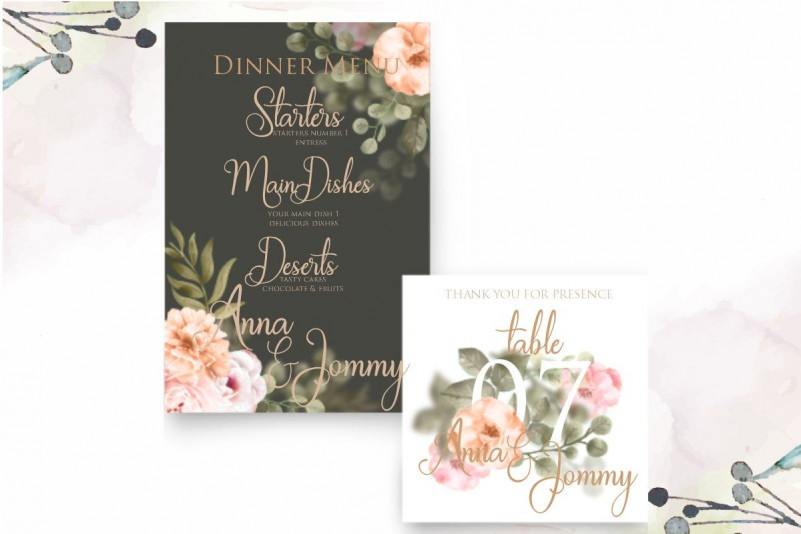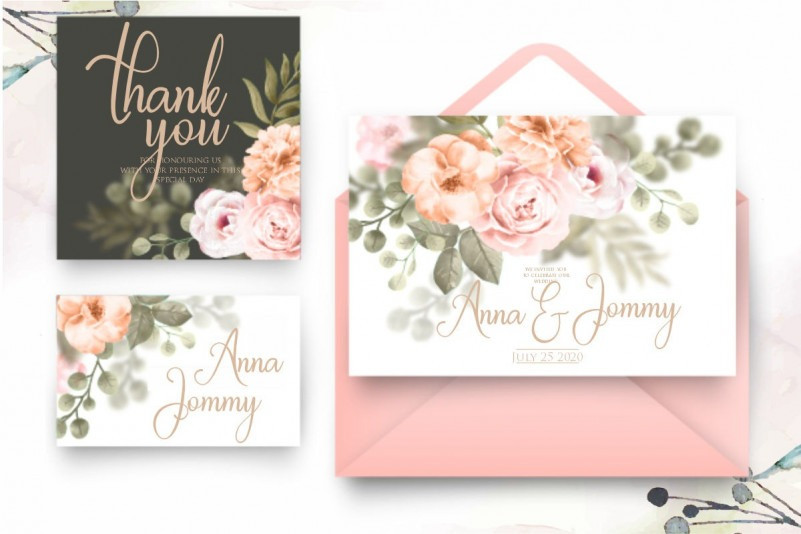
Aminarthie Calligraphy Font
Thank you for looking Aminarthie Font. This is a natural & modern calligraphy font. Trendy and feminine style. It’s looks lovely on wedding invitations, thank you cards, quotes, greeting cards, logos, business cards and more. It’s designed by Gilar Studio. Aminarthie Calligraphy is a beautiful calligraphy font, perfect for elegant logos, upscale packaging, wedding stationery, websites, and any other projects requiring a handwritten and luxurious touch. A wide range of alternates is included as well, to give your logo or name a custom look.